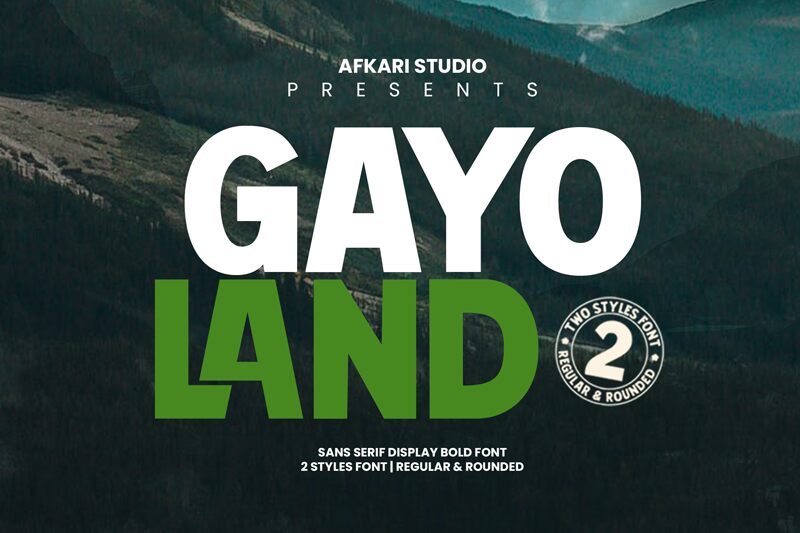
Gayo Land Rounded font family is a free sans serif typeface by Afkari Studio sharing a modern, and clean appearance. The two font styles are strong, impactful, professional, and contemporary. Its design is versatile, dynamic, and balanced making it capable of adapting to the context of the project it gets used in.
Gayo Land is a striking sans serif display font that features a bold design, perfect for making a lasting impression in your projects.